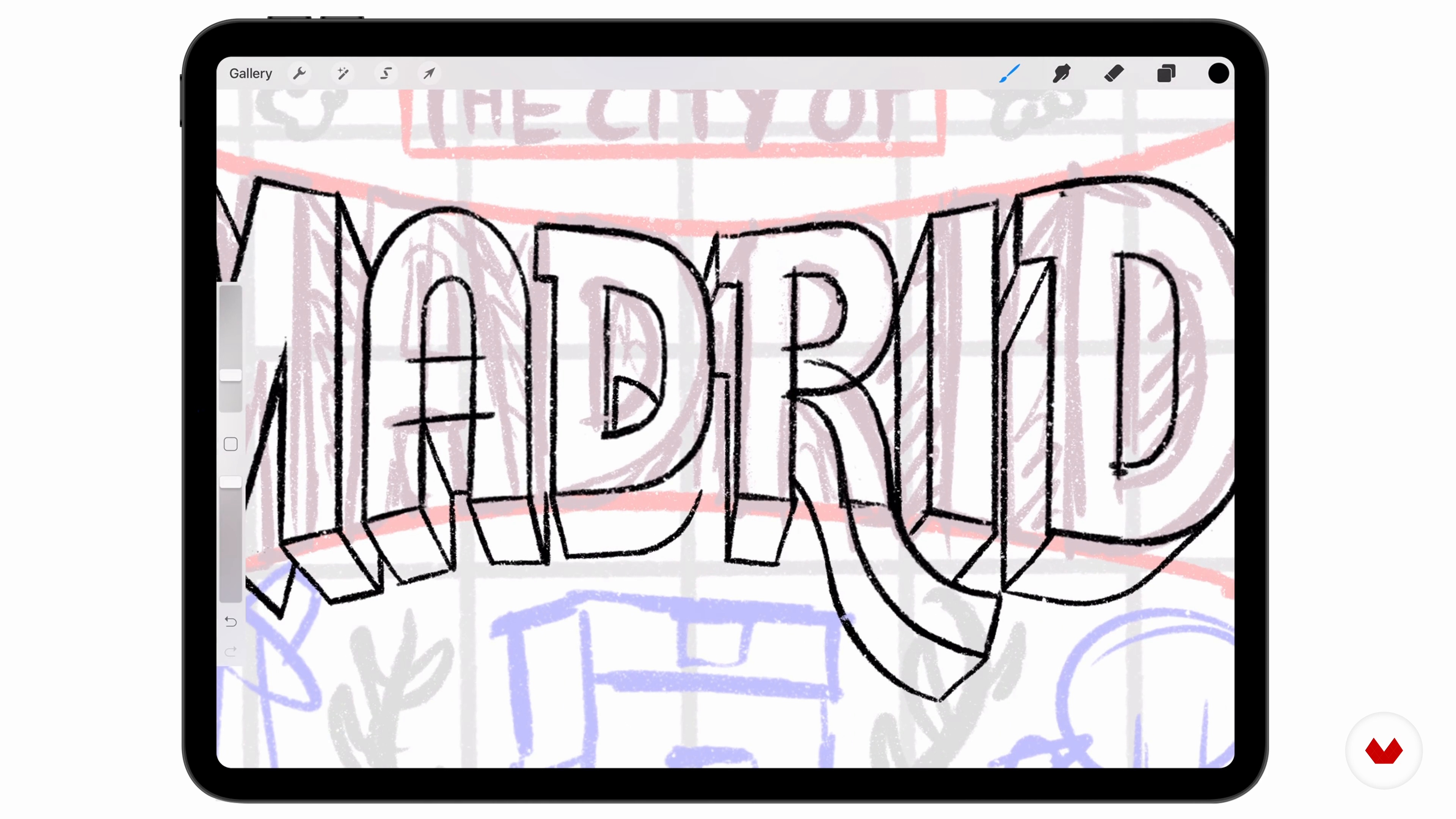
Refining Typographies
About the video: Refining Typographies
“Using your chosen basic composition sketch as a guide, you will now create a more detailed sketch that considers all the chosen elements drawn in more detail. In the first step, you will focus on typography, the central element of our cover, to refine it from your chosen options.”
In this video lesson Justin Poulter addresses the topic: Refining Typographies, which is part of the Domestika online course: Expressive Illustration and Lettering for Editorial Design. Explore the sweet spot between art and design by learning how to create memorable book covers with Procreate and Adobe Illustrator.
“Refining Typographies Now I'm going to import my mood board with my typography reference on. I really like the 3D typography here in the middle, and I think I'll try and do something similar for my word Madrid. First, I'm going to take my composition sketch and turn the opacity right down so I can almost just see it. Next, I'm going to create a new layer to start drawing my typography on. By using the straight line trick I taught you you can draw your lettering neatly. Now I'll carry on drawing the rest of the word Madrid, and I'll see you guys in a moment. I've now finished drawing the wor...”